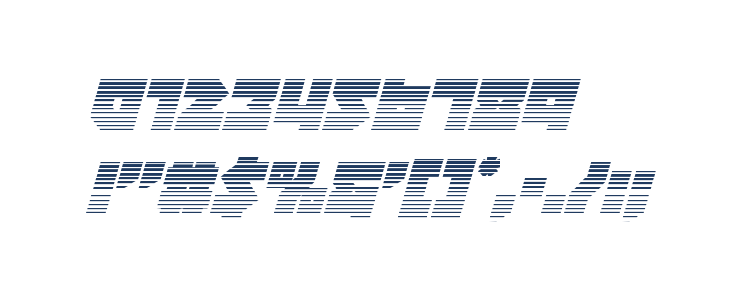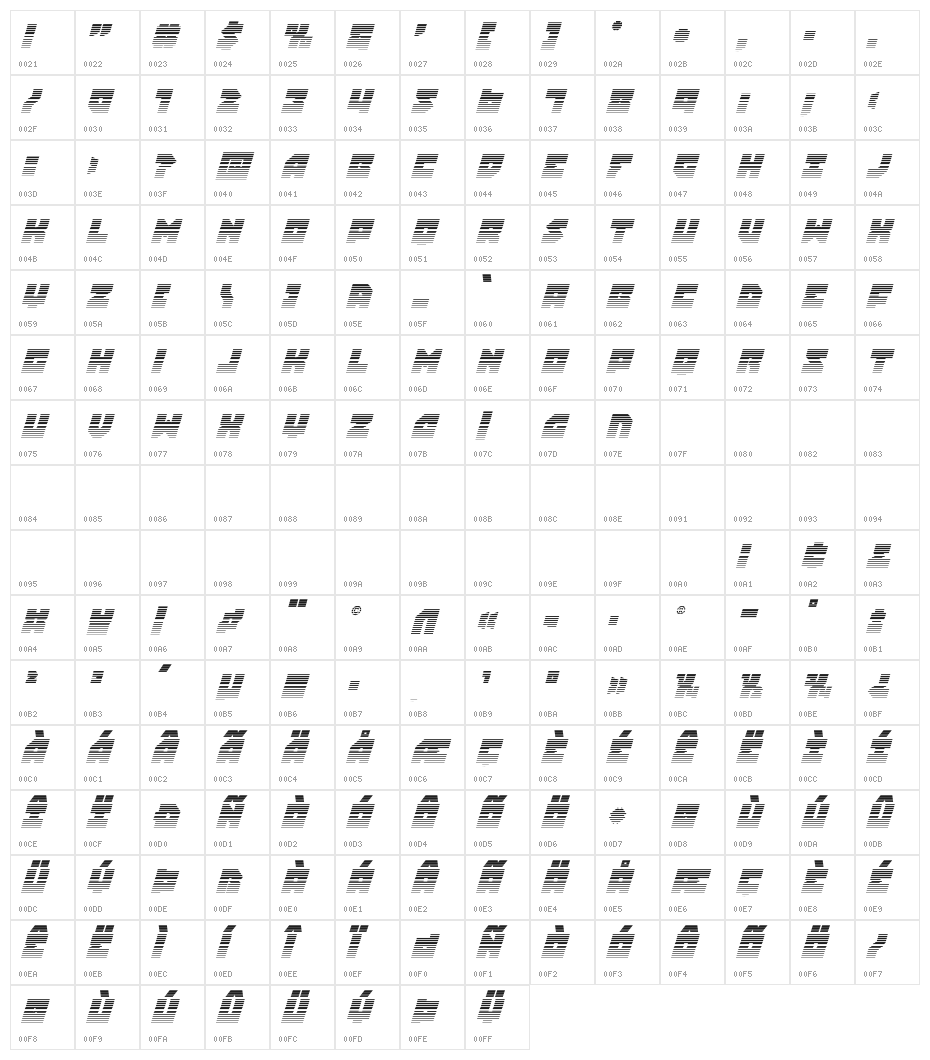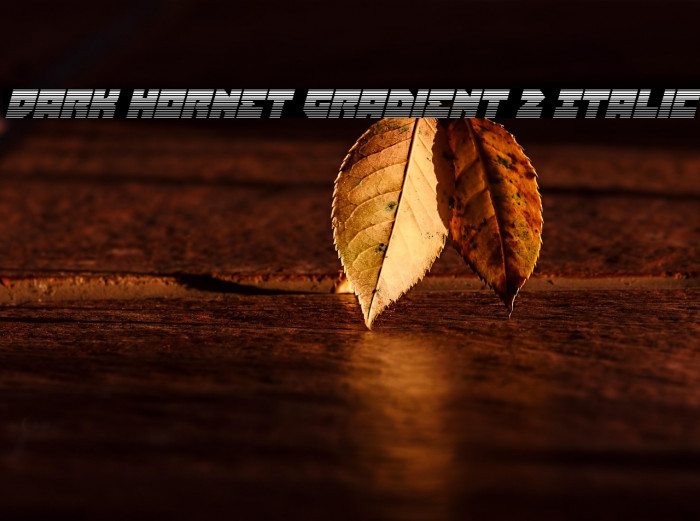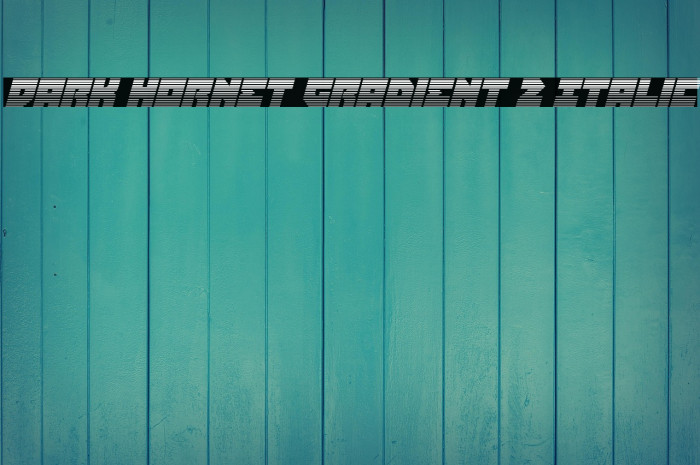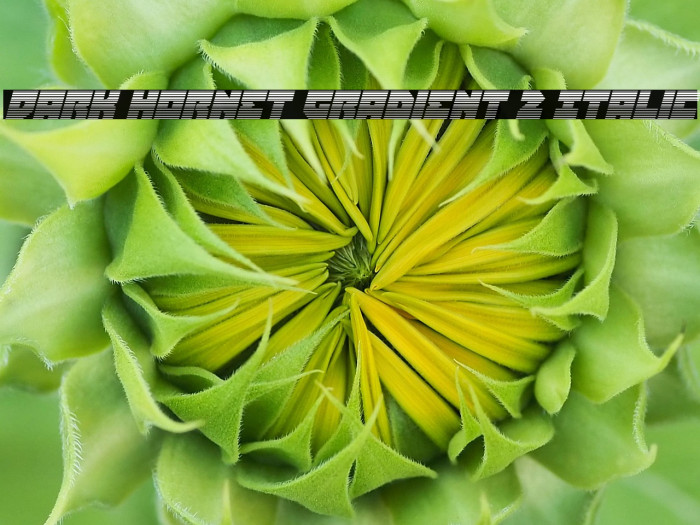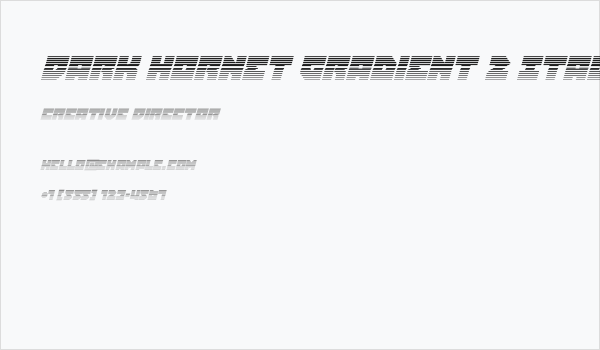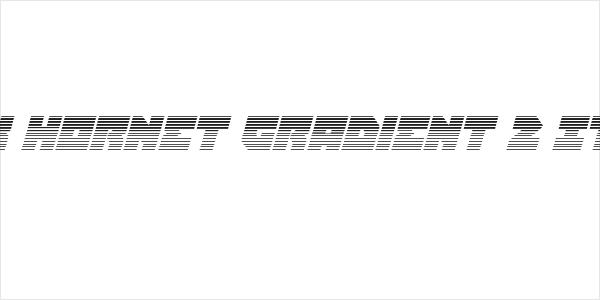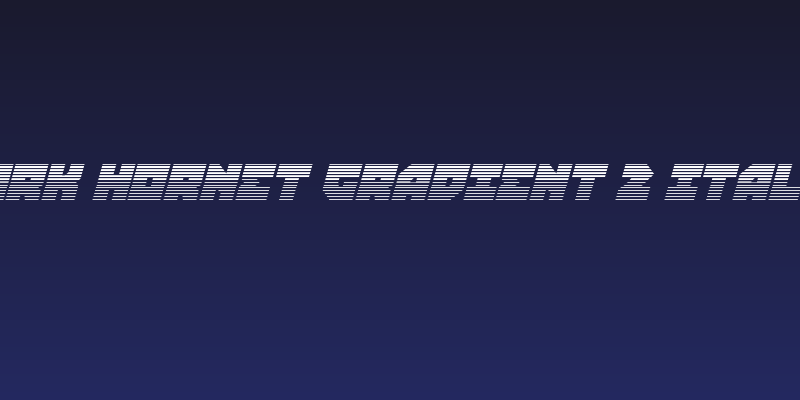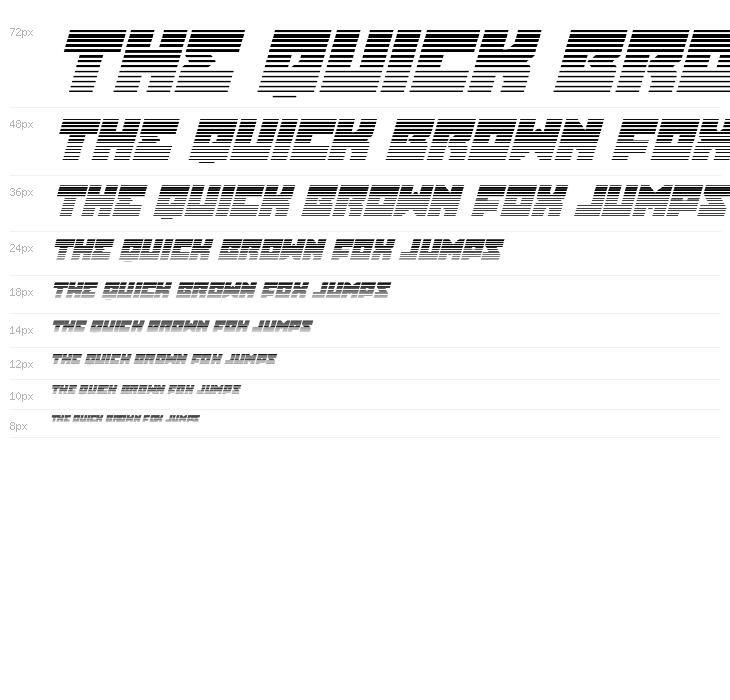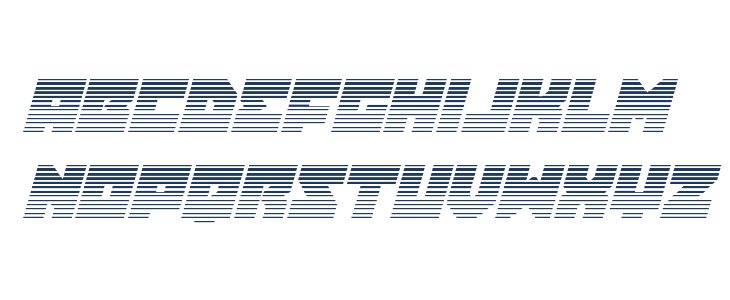
Dark Hornet Gradient 2 Italic Font
Dark Hornet Gradient 2 Italic Description
This font features a bold, futuristic design with a distinct gradient effect created by horizontal lines. The characters are italicized, giving a sense of motion and speed. Each letter and number is constructed with a series of parallel lines, creating a dynamic visual texture. The uppercase and lowercase letters maintain a consistent style, with sharp angles and a geometric structure. The special characters follow the same design principles, ensuring uniformity across the font. This font is eye-catching and ideal for projects that require a modern, tech-inspired aesthetic.